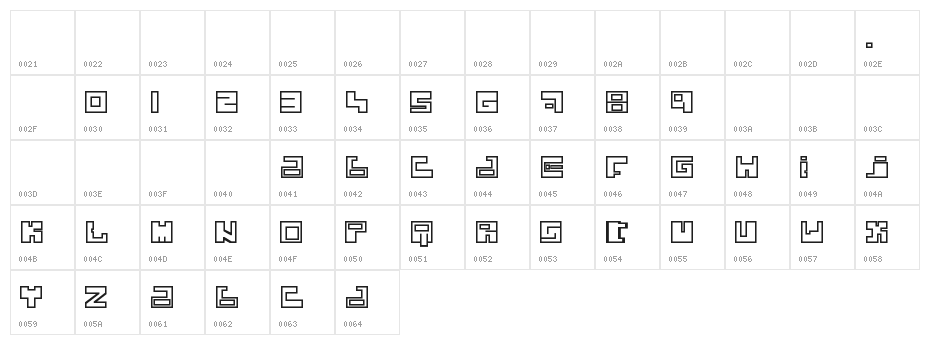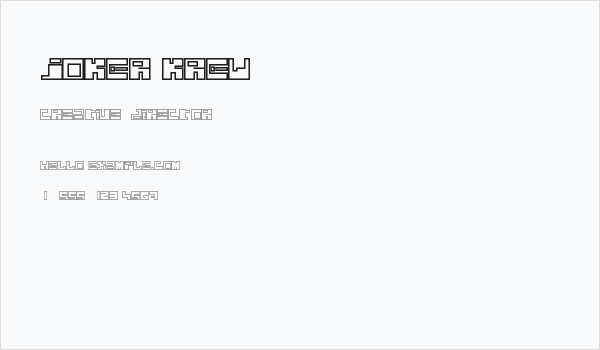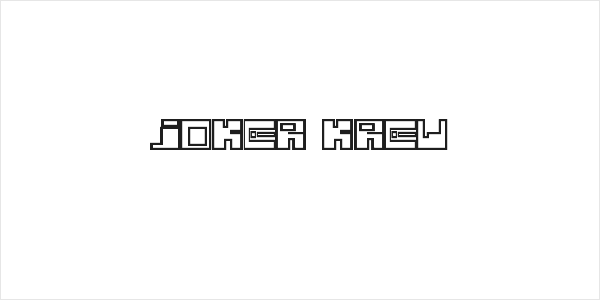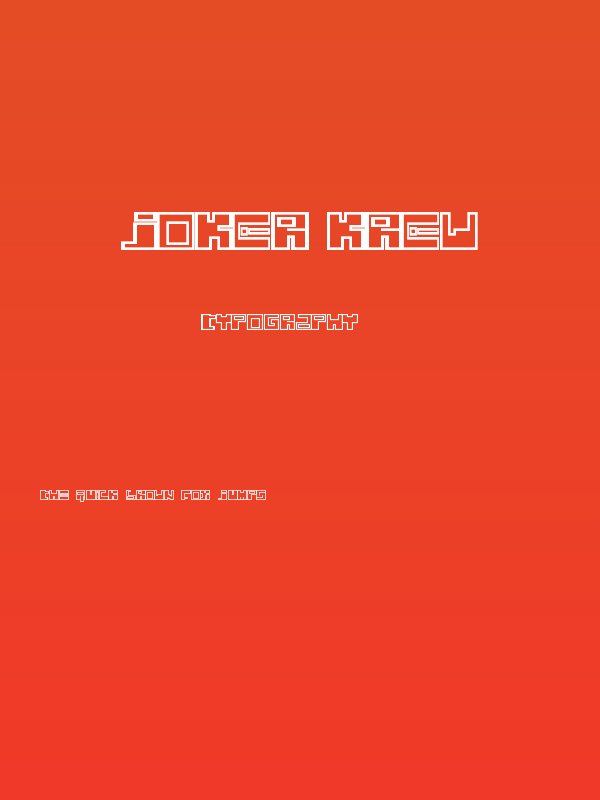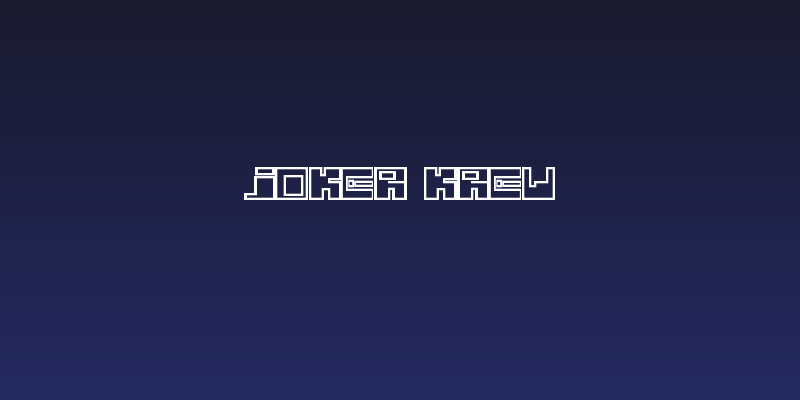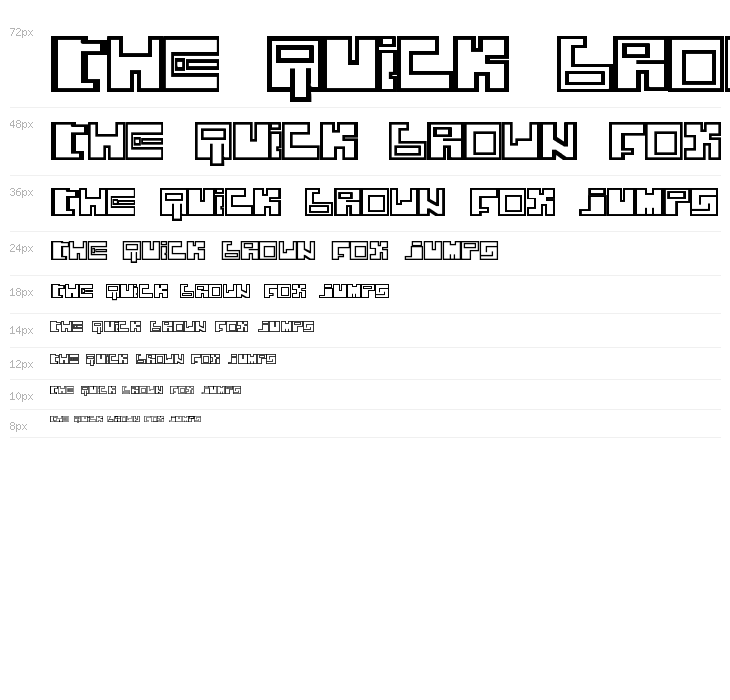
Joker-Krew Font
Joker-Krew Description
This font features a bold, geometric design with a strong emphasis on angular shapes and sharp corners. Each character is constructed with thick lines and a consistent stroke width, creating a cohesive and striking appearance. The uppercase and lowercase letters share a similar structure, maintaining uniformity across the alphabet. Numbers and special characters are designed to match the overall style, ensuring a seamless integration with the text. The font's unique style makes it ideal for projects that require a modern and edgy look.
Proposed ProjectsIdeal for posters, logos, video game graphics, and modern branding projects.